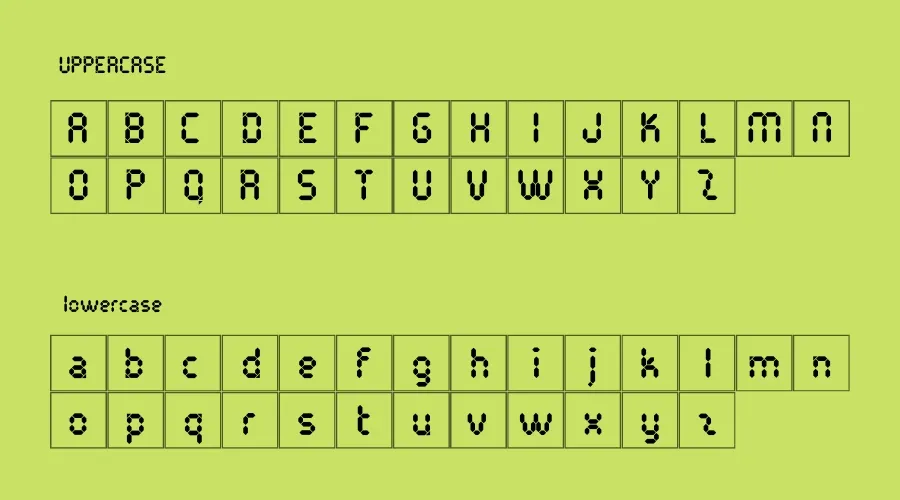
About Pocket Calculator Font
Pocket Calculator Font is created by Blue Vinyl Fonts that is known as a techno text style. It has different patterns and characters that are appropriate for various display designs.
This typeface offers a variety of interesting features that make it ideal for numerous text designs. It has special features and stylistic characteristics.